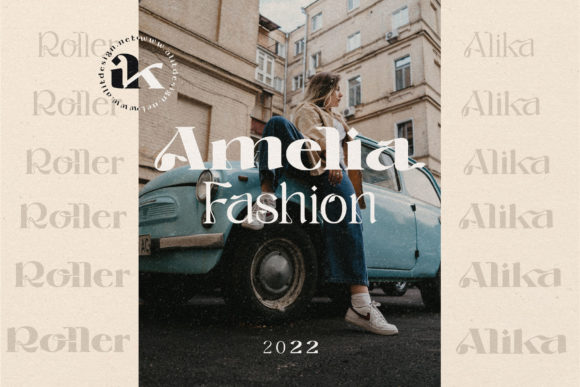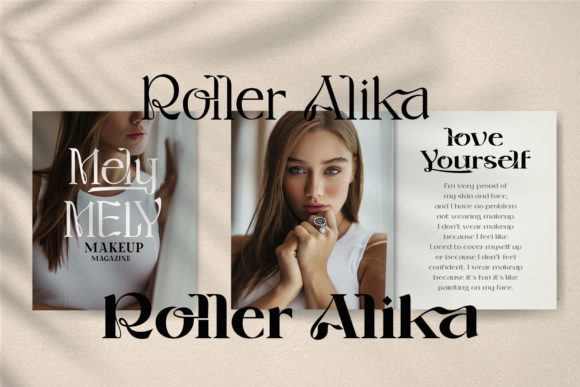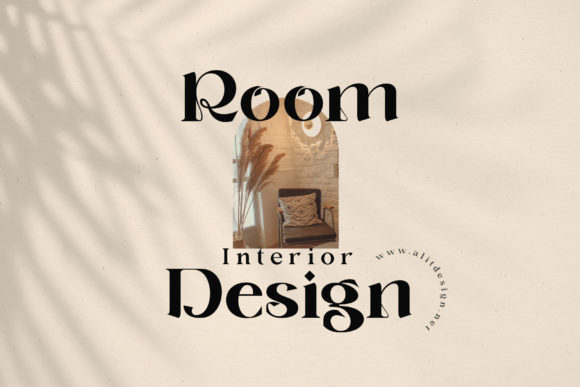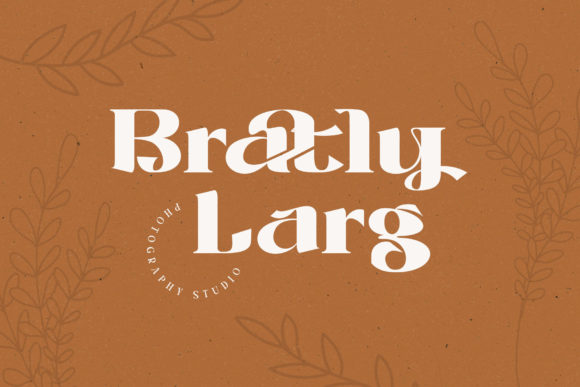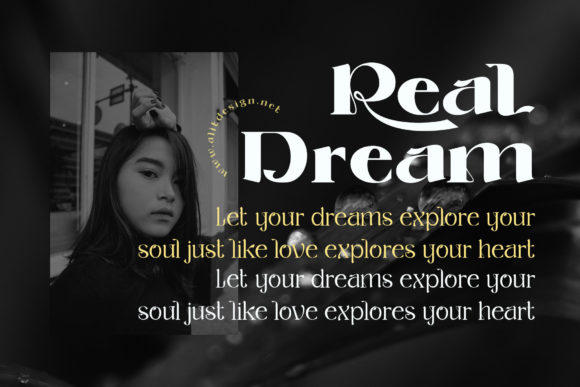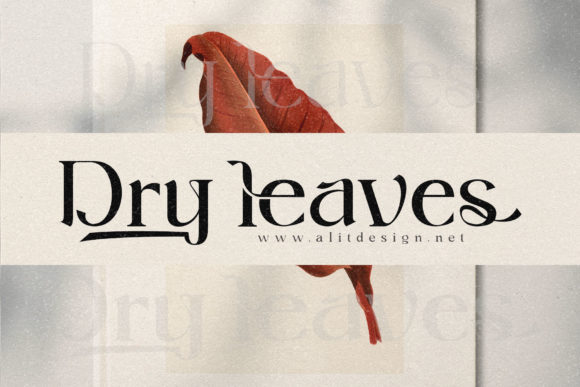
Introduction to Roller Alika Font
Imagine yourself standing in front of a blank canvas, eager to bring your next creative project to life. The blank page stares back, awaiting the perfect font to set the tone for your masterpiece. For designers, the right font can make all the difference. And that’s where the Roller Alika Font comes in – a modern and stylish serif font that exudes elegance and sophistication.
Whether you’re designing a logo, branding materials, or a wedding invitation, the Roller Alika Font is the perfect addition to your design resource arsenal. With its classy and refined look, it’s no wonder this font is a popular choice among designers. And the best part? It’s available for free download, complete with a transparent background for seamless integration into your high-quality designs.
Key Features of Roller Alika Font
- Features a unique and stylish design, perfect for adding a touch of elegance to any project.
- Supports multiple languages, making it a great choice for international creative projects.
- Can be easily customized to fit the specific needs of your design, thanks to its flexible and modern design.
Honest Review: Roller Alika Font
I recently had the chance to work with the Roller Alika Font for a creative project, and I must say it’s been a game-changer. As a designer, I’m always on the lookout for high-quality design resources that can elevate my work and help me stand out from the crowd.
- ✨ The font’s unique and modern aesthetic is perfect for a wide range of creative projects, from branding and marketing materials to digital products and web design.
While the Roller Alika Font is an excellent choice for many projects, there are a few limitations to keep in mind:
- ⚠️ The font may not be suitable for complex or detailed text-based projects, as it can be a bit difficult to read at small font sizes.
- ⚠️ Some users may find the font’s bold lines and geometric shapes a bit too busy or overwhelming.
Overall, I’m thoroughly impressed with the Roller Alika Font. Its high-quality design and versatility make it an excellent addition to any designer’s toolkit. Whether you’re working on a simple logo or a complex digital product, this font is sure to help you create something truly unique and eye-catching.
How to Use Roller Alika Font
Tips for Getting the Most Out of Roller Alika Font
The Roller Alika Font is ideal for design projects requiring a unique and eye-catching font. Use it for social media graphics, presentations, or any other creative project where a bold and modern font is needed.